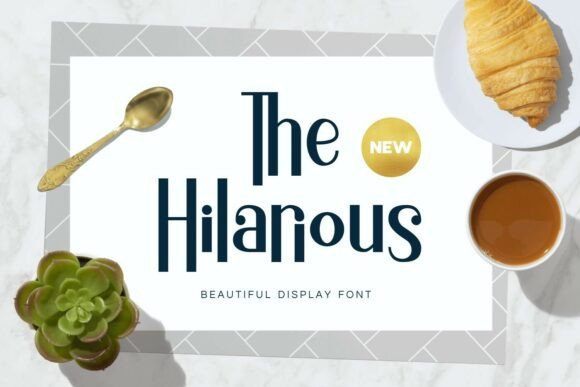
The Hilarious Font: A Timeless Blend of Elegance and Personality
In the world of typography, fonts play a crucial role in conveying the tone and personality of a brand, product, or message. With thousands of fonts available, finding the perfect one that balances elegance and personality can be a daunting task. However, if you’re looking for a font that effortlessly combines vintage charm with modern sophistication, look no further than The Hilarious Font.
The Hilarious Font: A Beautiful Display Font
The Hilarious Font is a stunning display font that boasts a tall and slender design, featuring a charming blend of cheerful characters balanced with smooth and graceful curves. This font is perfect for designers who want to add a touch of elegance and personality to their projects. Whether you’re working on branding, fashion, editorial layouts, greeting cards, invitations, packaging, café menus, coffee shops, bakeries, posters, or any editorial design, The Hilarious Font is an excellent choice.
Key Features of The Hilarious Font
- Tall and Slender Design: The Hilarious Font features a tall and slender design that exudes elegance and sophistication.
- Cheerful Characters: The font boasts a charming blend of cheerful characters that add a touch of personality to any design.
- Smooth and Graceful Curves: The font’s smooth and graceful curves provide a beautiful contrast to its tall and slender design.
- Vintage Charm: The Hilarious Font effortlessly combines vintage charm with modern elegance, making it perfect for designers who want to add a touch of nostalgia to their projects.
- Art Deco Touches: The font features subtle art deco touches that add a touch of sophistication and glamour.
10 Creative Ways to Use The Hilarious Font
- Branding: Use The Hilarious Font to create a memorable brand identity that exudes elegance and personality.
- Fashion: The font’s tall and slender design makes it perfect for fashion brands that want to convey a sense of sophistication and glamour.
- Editorial Layouts: Use The Hilarious Font to add a touch of elegance to editorial layouts, such as magazines, newspapers, and blogs.
- Greeting Cards: The font’s cheerful characters make it perfect for greeting cards, invitations, and other personal correspondence.
- Packaging: Use The Hilarious Font to create eye-catching packaging that stands out on store shelves.
- Café Menus: The font’s elegant design makes it perfect for café menus, coffee shops, and bakeries.
- Posters: Use The Hilarious Font to create stunning posters that grab attention and convey a message.
- Invitations: The font’s sophisticated design makes it perfect for formal invitations, such as weddings, galas, and other formal events.
- Editorial Design: Use The Hilarious Font to add a touch of personality to editorial designs, such as articles, blog posts, and social media graphics.
- Advertising: The font’s elegant design makes it perfect for advertising campaigns that want to convey a sense of sophistication and glamour.
Typography Tips: Getting the Most Out of The Hilarious Font
When working with The Hilarious Font, here are some typography tips to keep in mind:
- Use it as a Display Font: The Hilarious Font is designed to be used as a display font, so use it to grab attention and convey a message.
- Pair it with a Sans-Serif Font: Pair The Hilarious Font with a sans-serif font to create a beautiful contrast between elegance and simplicity.
- Experiment with Font Sizes: Experiment with different font sizes to create visual hierarchy and add emphasis to your design.
- Use it in Limited Amounts: Use The Hilarious Font in limited amounts to avoid overwhelming your design.
The Benefits of Using The Hilarious Font
There are many benefits to using The Hilarious Font in your designs. Here are a few:
- Elegance and Sophistication: The Hilarious Font exudes elegance and sophistication, making it perfect for high-end brands and designs.
- Personality and Character: The font’s cheerful characters add a touch of personality and character to any design.
- Versatility: The Hilarious Font is versatile and can be used in a variety of design projects, from branding to editorial design.
- Unique and Memorable: The font’s unique design makes it memorable and stands out from other fonts.
In conclusion, The Hilarious Font is a stunning display font that effortlessly combines vintage charm with modern elegance. Its tall and slender design, cheerful characters, and smooth and graceful curves make it perfect for designers who want to add a touch of elegance and personality to their projects. With its versatility, unique design, and memorable character, The Hilarious Font is an excellent choice for any design project that requires a blend of sophistication and personality.